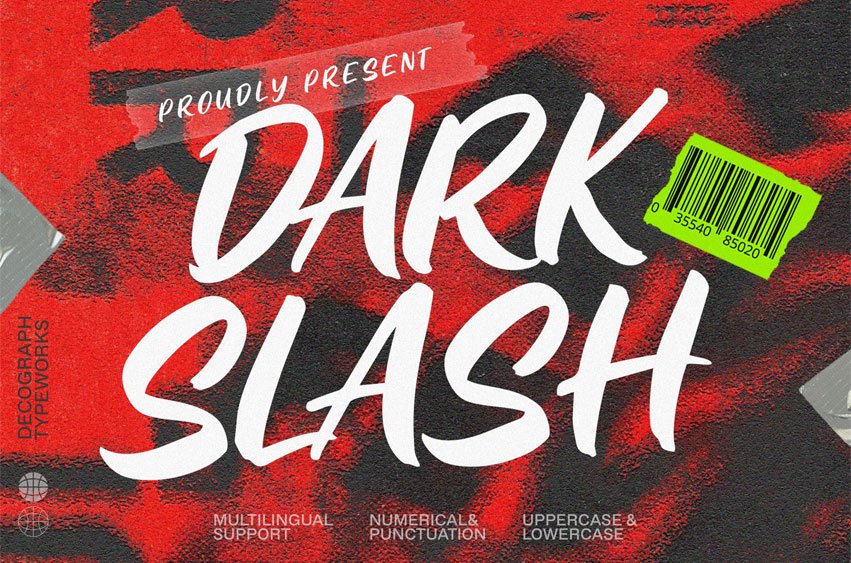
Dark Slash Font Aggressive Brush Display Font is a bold handwritten typeface created with energetic brush strokes and raw texture. Its sharp curves and dynamic movement give the letters a strong visual rhythm that feels expressive, rebellious, and full of attitude. The natural brush edges create an authentic handmade look while maintaining powerful readability for display typography.
Designed for projects that demand bold and energetic visuals, this font works perfectly for eye-catching headlines and impactful branding. Whether used for posters, music artwork, or social media content, Dark Slash delivers a striking urban style with raw creative energy.
Style: Aggressive Brush Urban Display Expressive Handwritten